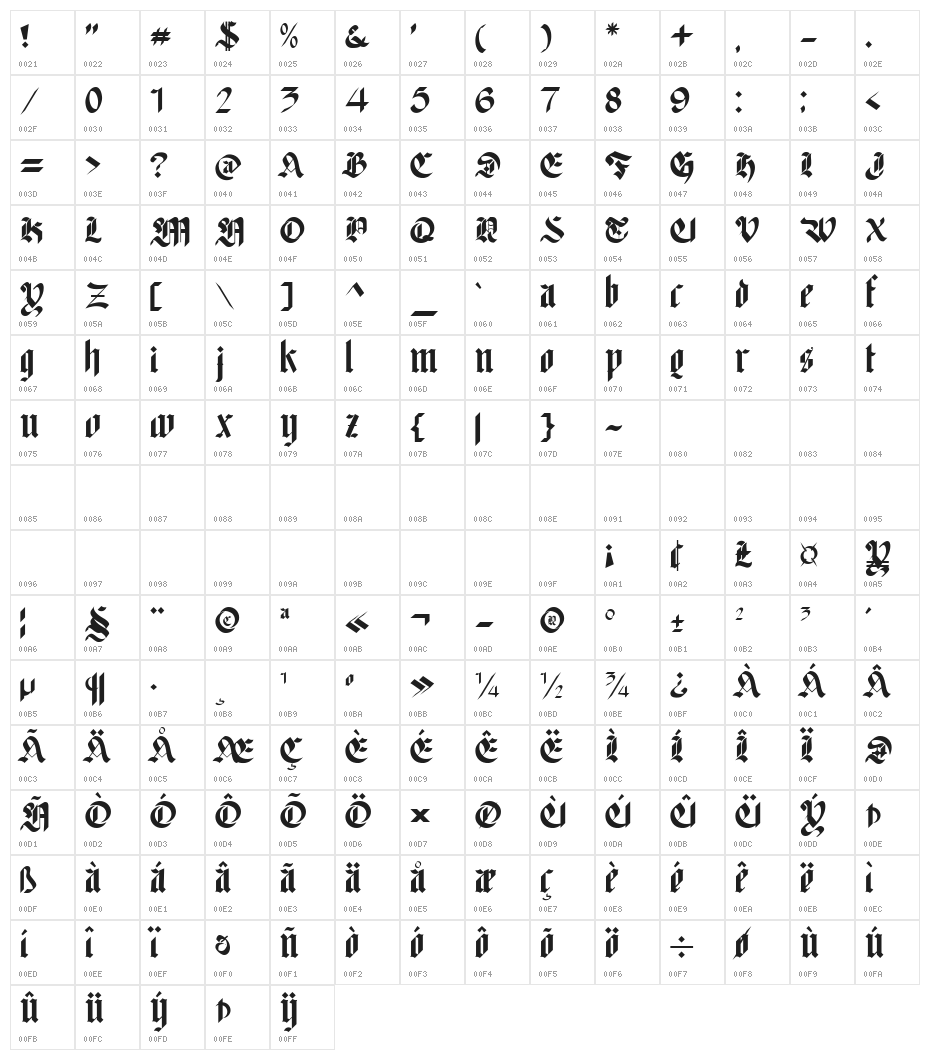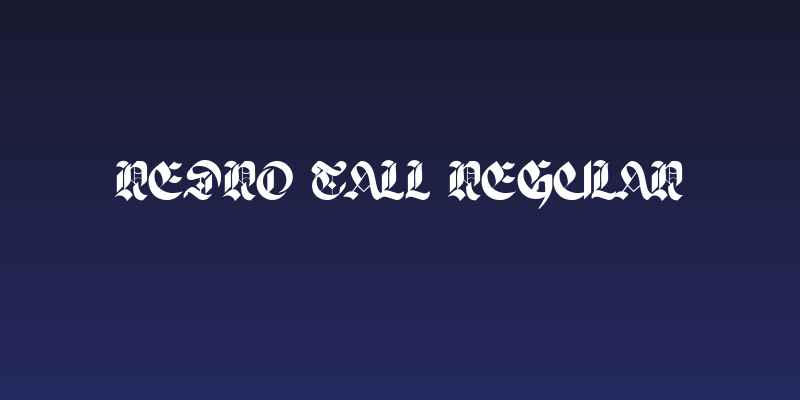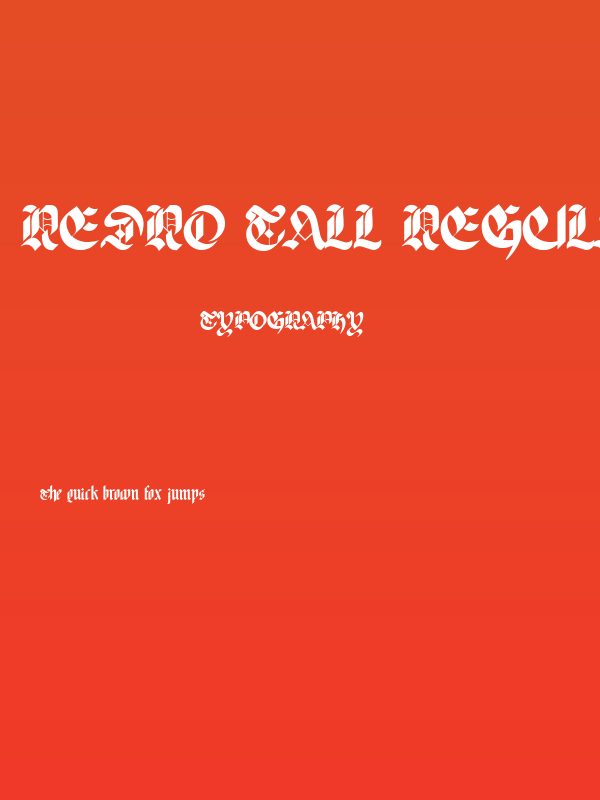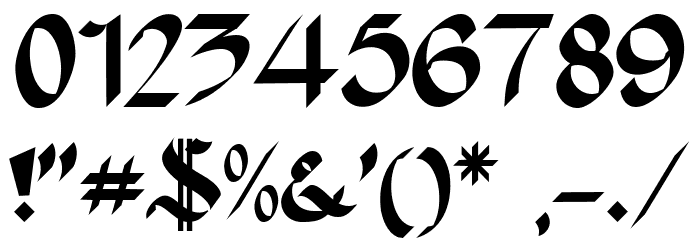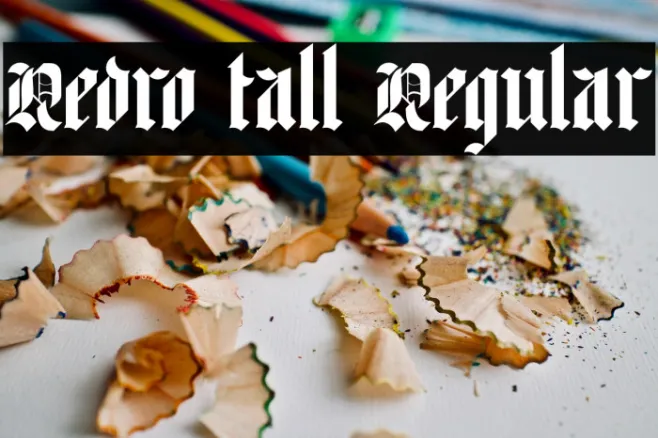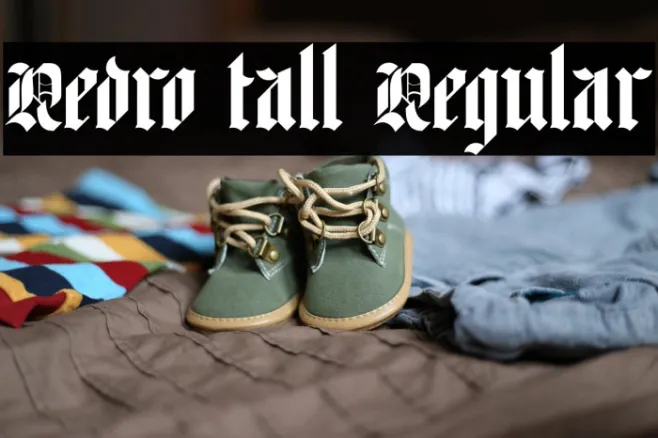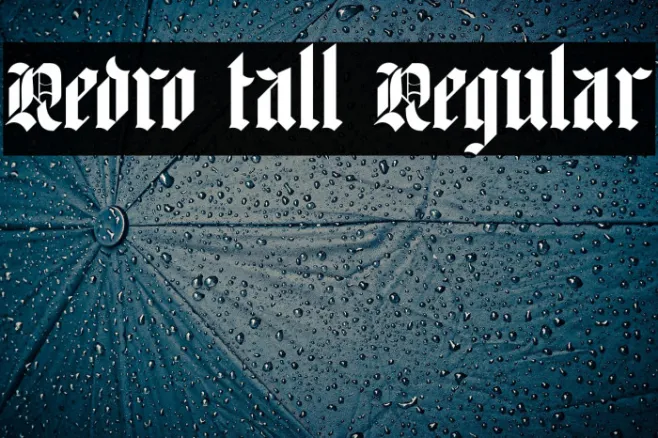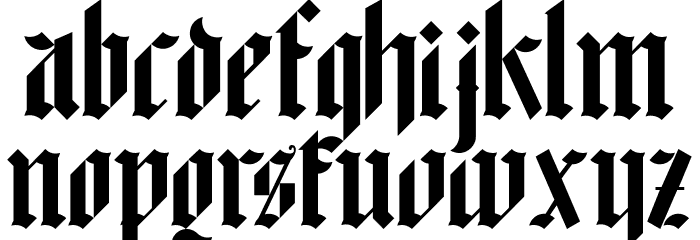
Redro tall Regular Font
Redro tall Regular Description
This font exhibits a bold and dramatic blackletter style, characterized by its intricate and angular letterforms. The uppercase letters are ornate, with sharp edges and pointed serifs, giving them a gothic appearance. The lowercase letters maintain the same level of detail, with consistent stroke widths that enhance the font's boldness. Numbers and special characters are designed to match the overall aesthetic, featuring similar angular and decorative elements. This font is highly stylized, making it suitable for projects that require a historical or medieval touch.
| Overall Style | Gothic, Medieval |
| Use Case | Headlines, Logos, Decorative text |
| Proposed Projects | Ideal for historical documents, medieval-themed designs, book covers, posters, and branding that requires a dramatic and gothic touch. |